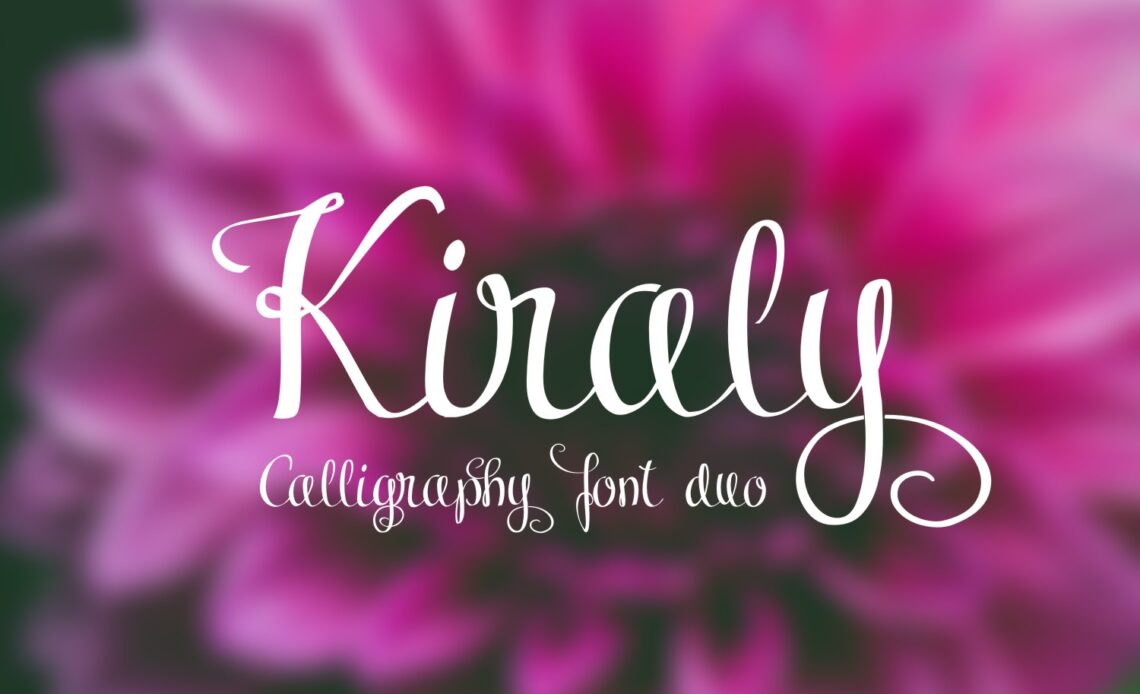
Introducing Kiraly Font: A Serendipitous Journey into Script's Enchanting Realm
In the boundless realm of typographic wonders, Kiraly Font emerges as an exquisite creation, beckoning you to an era of elegance and charm. This captivating script font family, meticulously crafted by Digital Typeface Studio, is an ode to romance and femininity, imbued with a touch of delicate artistry.
With its graceful Regular style, Kiraly Font exudes a classic sophistication, its meticulously rendered curves whispering tales of old-world charm. Each letterform dances harmoniously in perfect unison, creating an ethereal dance of words that captivates the beholder. Its captivating beauty will breathe life into your creative projects, adding a touch of timeless elegance that transcends the boundaries of time.
Yet, the allure of Kiraly Font doesn't end there. Unveiling its Curls variant, the font takes on a new dimension, embracing a playful whimsy that sets it apart from the ordinary. Its elegant curls, reminiscent of a gentle breeze caressing a blossoming meadow, add a touch of whimsy and exuberance to any design. With its enchanting appeal, Kiraly Font's Curls style is the perfect adornment for projects seeking a touch of lighthearted charm.
These two Kiraly Font styles are not mere font variations; they are transformative tools that empower you to create visual masterpieces that resonate with your audience. The Regular style offers a firm foundation for formal invitations, elegant branding materials, and classic wedding stationery, evoking a sense of timeless sophistication.
The Curls style beckons you to add delightful embellishments to greeting cards, playful social media posts, and whimsical posters, igniting a sense of pure joy. Whether you seek to evoke an air of timeless elegance or a burst of jubilant charm, Kiraly Font's versatility knows no bounds.
But beyond its sheer beauty and versatility, Kiraly Font holds the key to unlocking your untapped creative potential. Its intuitive design invites you to explore new horizons, pushing the boundaries of your imagination. With Kiraly Font as your creative companion, you'll discover hidden depths of expression, transforming ordinary words into vibrant works of art.
So, embark on this extraordinary typographical odyssey with Kiraly Font, the enchanting script that ignites the soul. Let its ethereal beauty elevate your projects, evoking emotions and leaving an enduring impression that whispers of elegance, romance, and timeless allure.